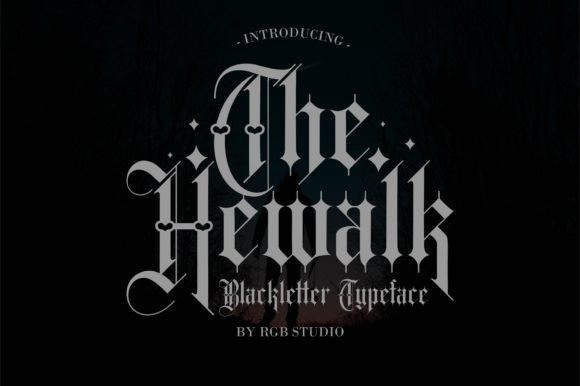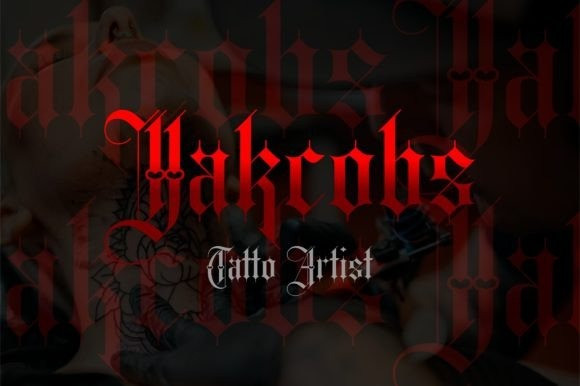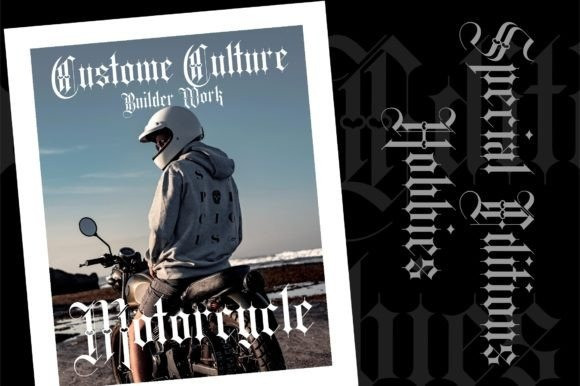
Hewalk Font
Hewalk is a splendid blackletter font that will impress with its stylish features. Use it for product packaging, branding, or other projects that need bold and daring typography!